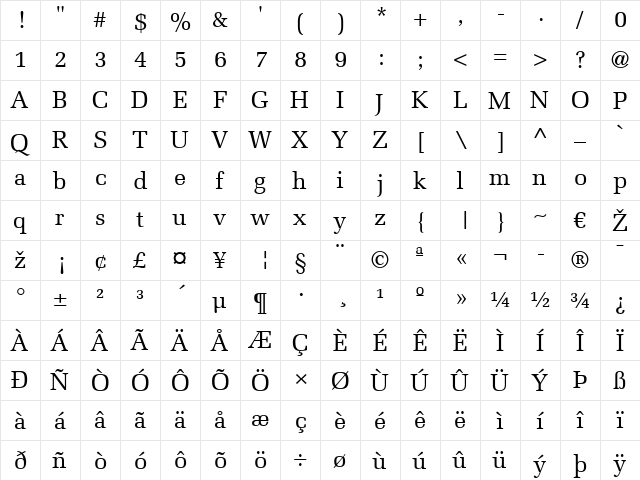
Melior LT Regular
Design Context for Melior LT Typeface
Melior LT offers clean, dependable letterforms without strong stylistic allegiance, making it a practical choice for designers who need flexibility. Its slender proportions lend an understated elegance to any composition.